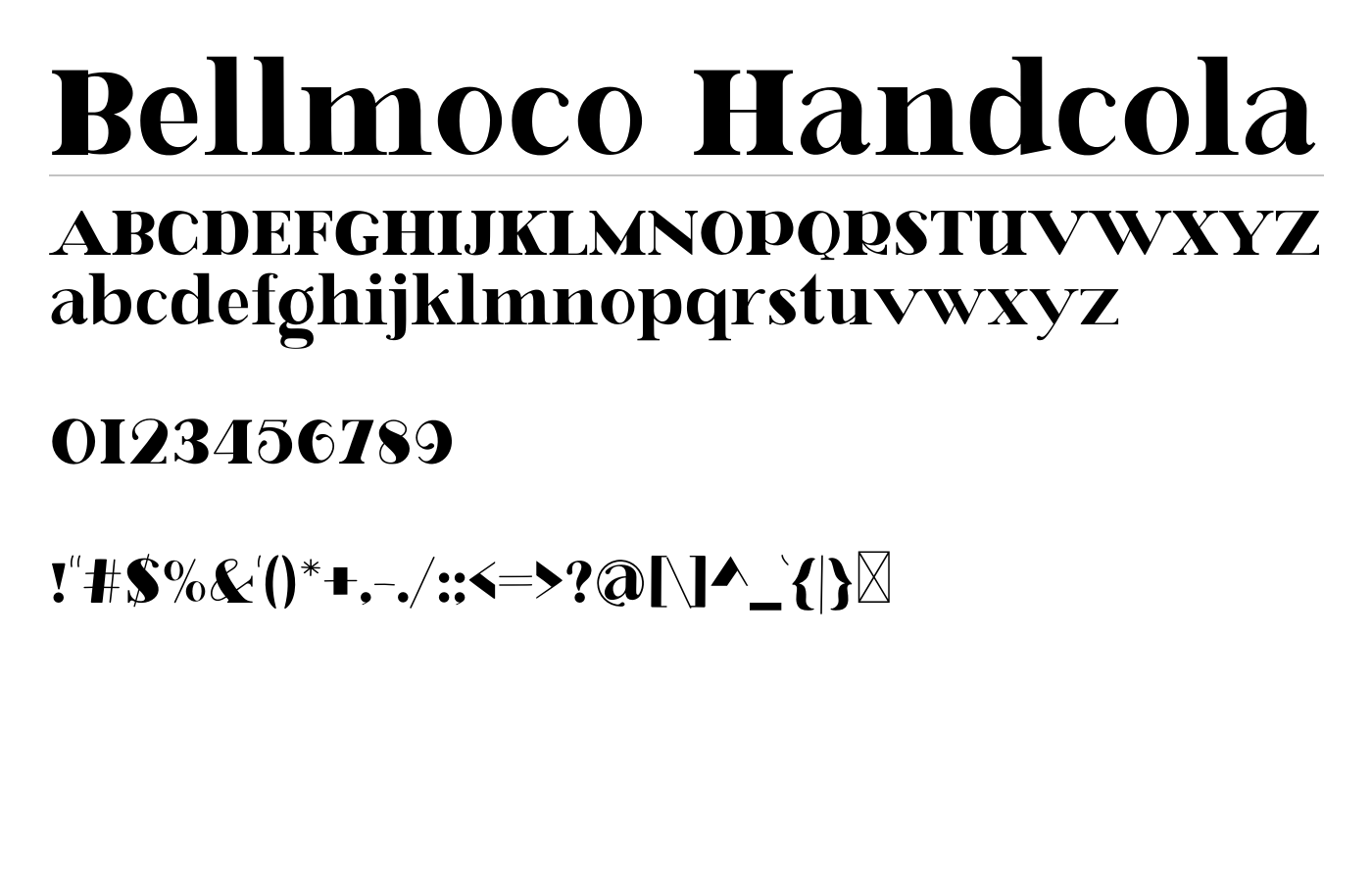
Bellmoco Handcola is a stylish serif font that combines the elegance of traditional serif forms with high contrast between thick and thin strokes, giving it a refined and classic feel. Its sharp, bracketed serifs and moderately condensed letterforms make it perfect for sophisticated editorial designs, luxury branding, and upscale headlines that require a touch of timeless charm. This font communicates a sense of authority and elegance, making it ideal for fashion magazines, high-end packaging, and formal invitations.
Bellmoco Handcola Font
About Bellmoco Handcola Font